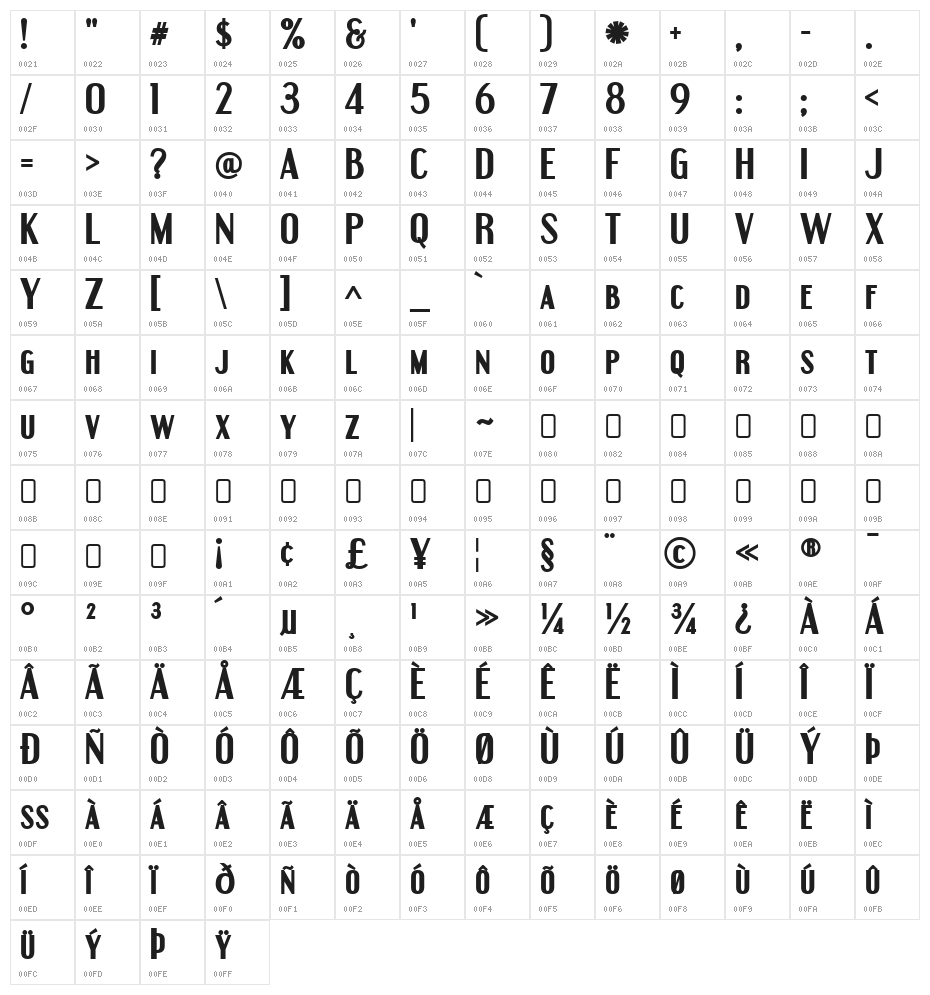
Engebrechtre-Bold Font
Engebrechtre-Bold Description
This font features a bold and impactful design, characterized by its strong vertical strokes and slightly condensed letterforms. The uppercase letters are tall and commanding, while the lowercase letters maintain a consistent height, providing a harmonious balance. The numerals are clear and distinct, making them easily readable. Special characters are well-defined, adding versatility to the font's usage. The overall style is modern and assertive, suitable for making a strong visual statement.